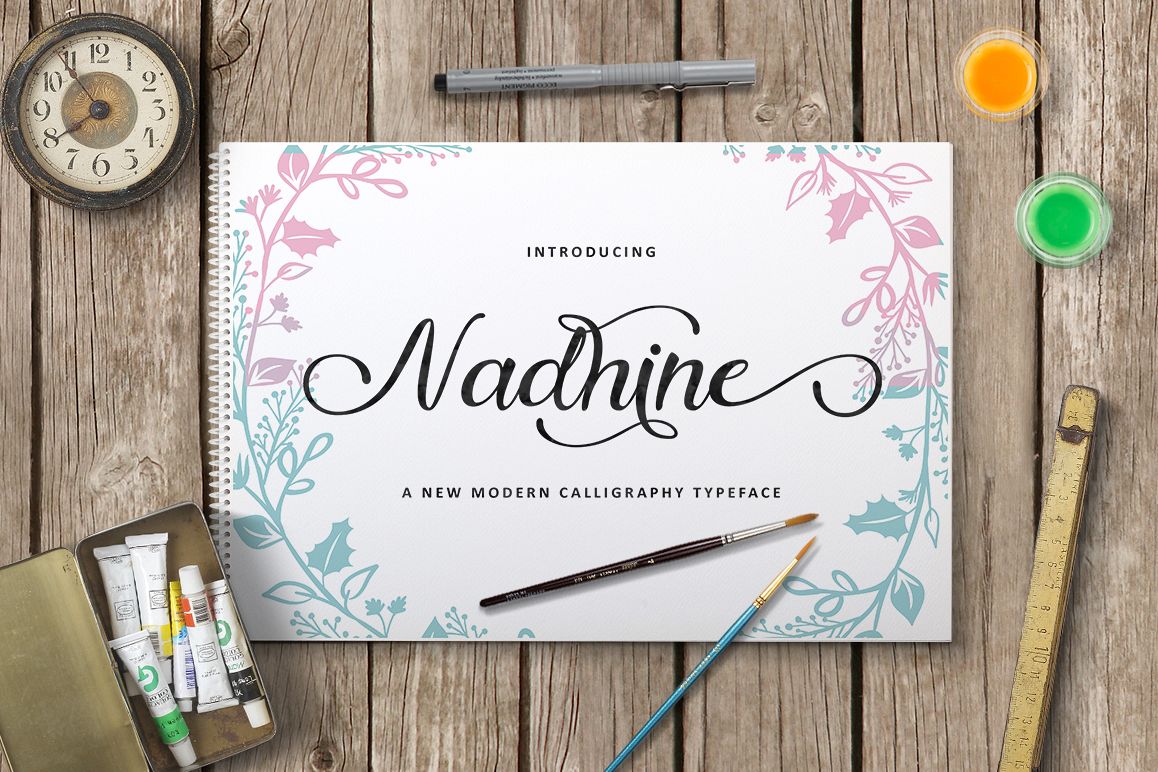
Nadhine Script
Nadhine Script is a new handwritten stylish copperplate calligraphy fonts, combines from copperplate to contemporary typeface, classic and elegant touch.Nadhine Script features 432 glyphs and 254 alternate character contain with opentype features. Stylistic alternates, Ligature and more.
You can access all those alternate characters by using OpenType savvy programs such as Adobe Illustrator and Adobe InDesign.Nadhine Script is suitable for Apparel Brand, any greeting cards, Painting design style, or any design that needs natural and personal touch. Mix and match the alternate characters to add an attractive message to your design.